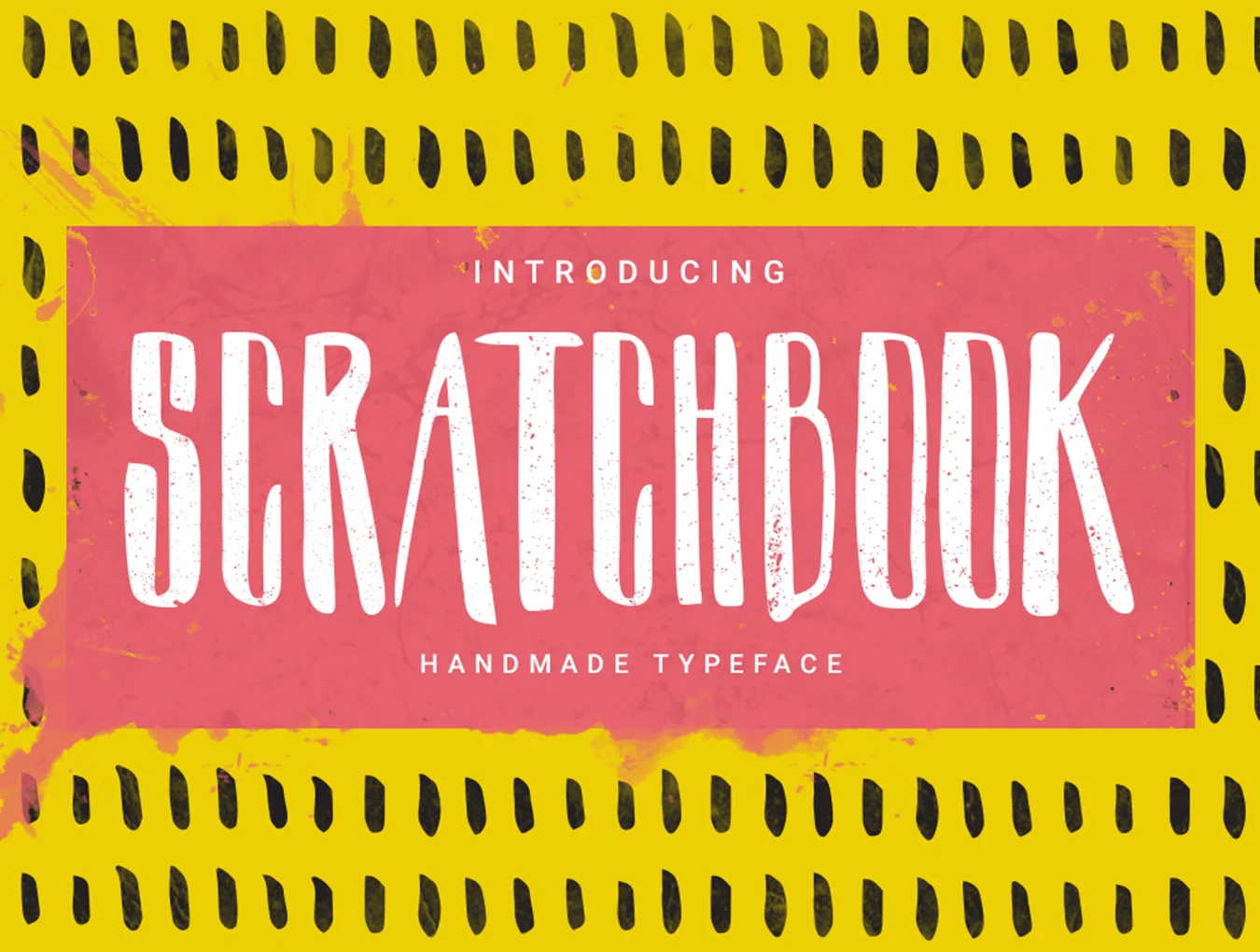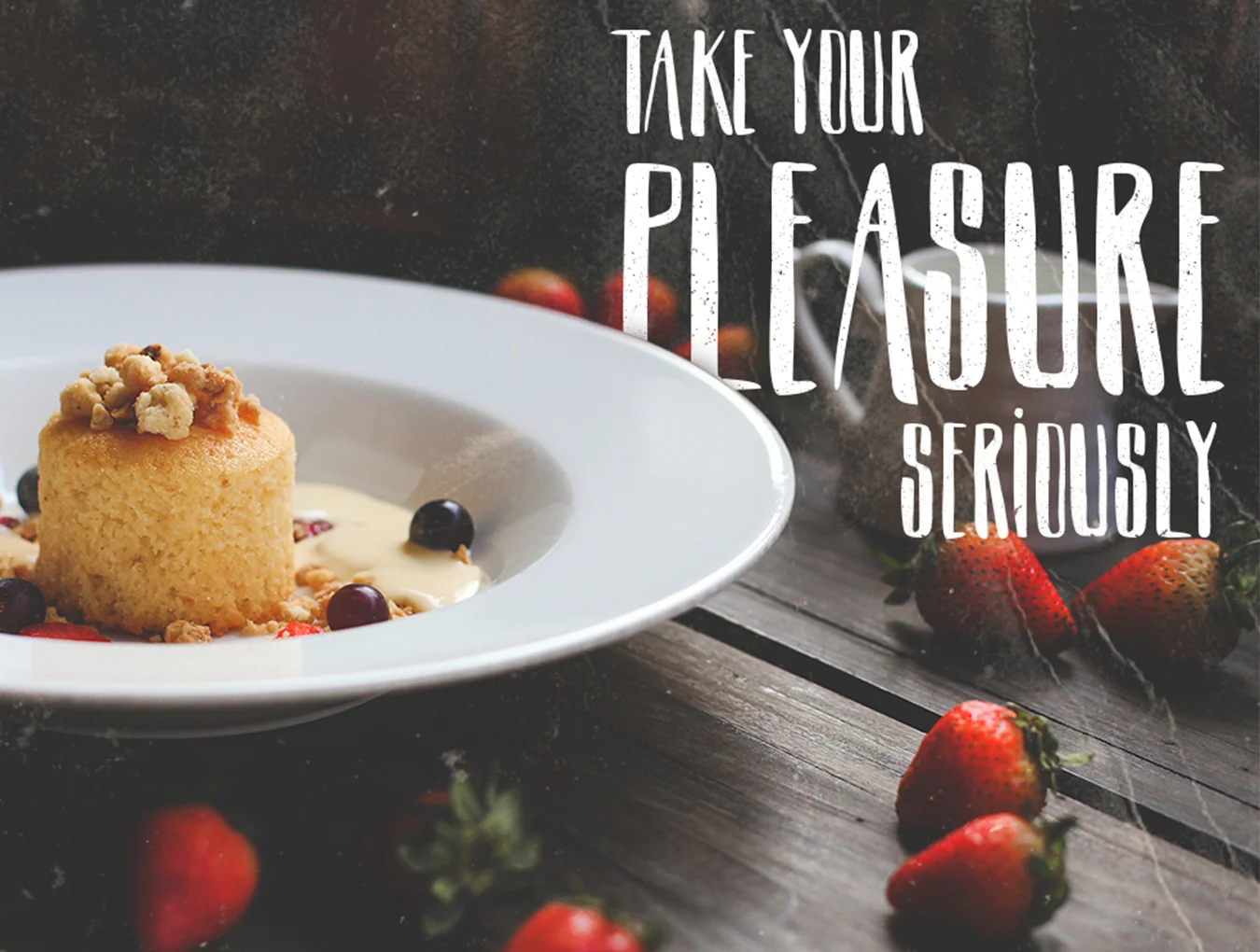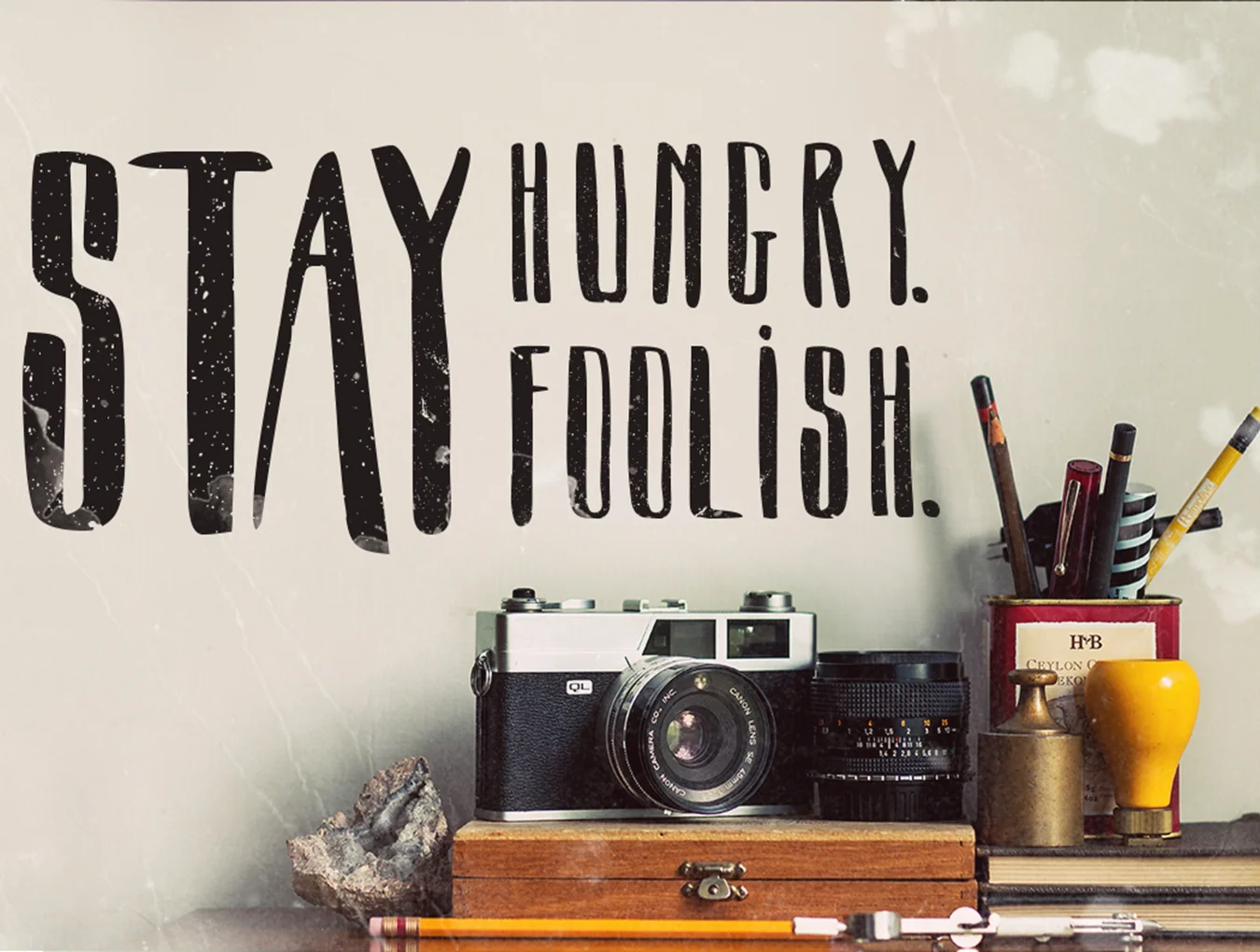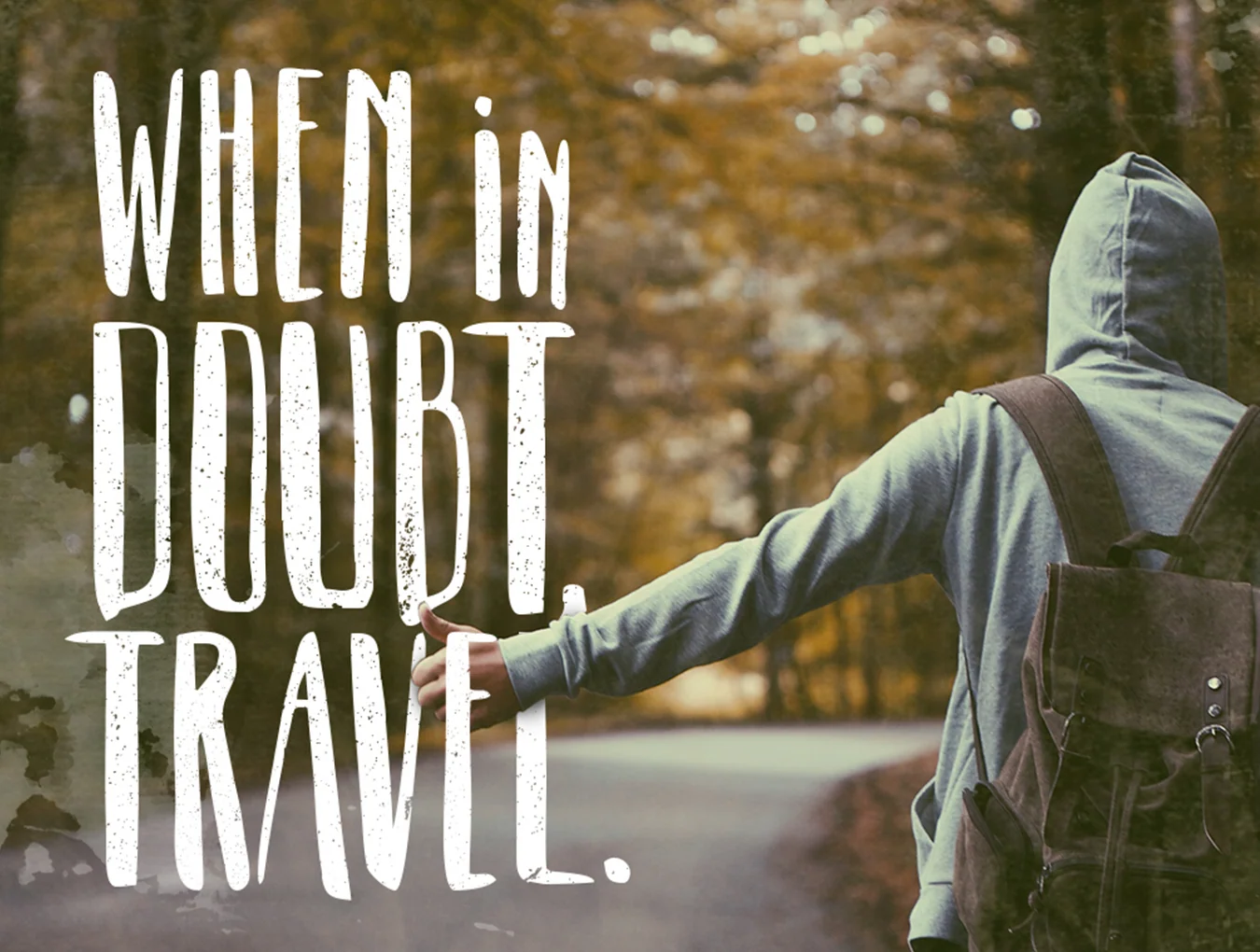
Scratchbook Typeface
Two handbrush-style fonts
Scratchbook plus Scratchbook rough style
Handbrush-style typeface
Capital letterforms
Scratchbook is a hand-brushed typeface featuring two distinct styles, ideal for many creative projects including branding, logos, greeting cards, stationery, invitations, T-shirts, apparel, packaging, posters, typography, and more. Enjoy using it!